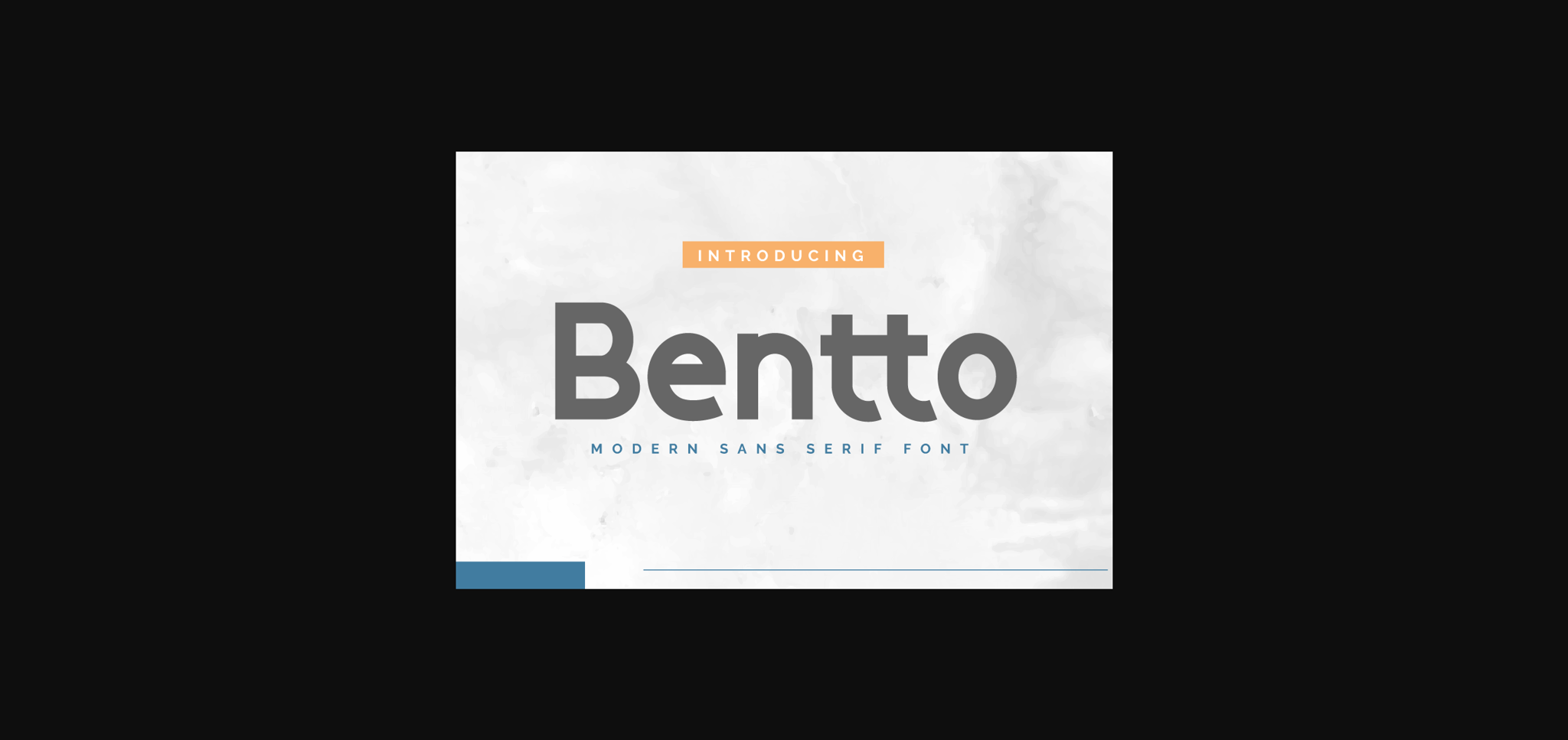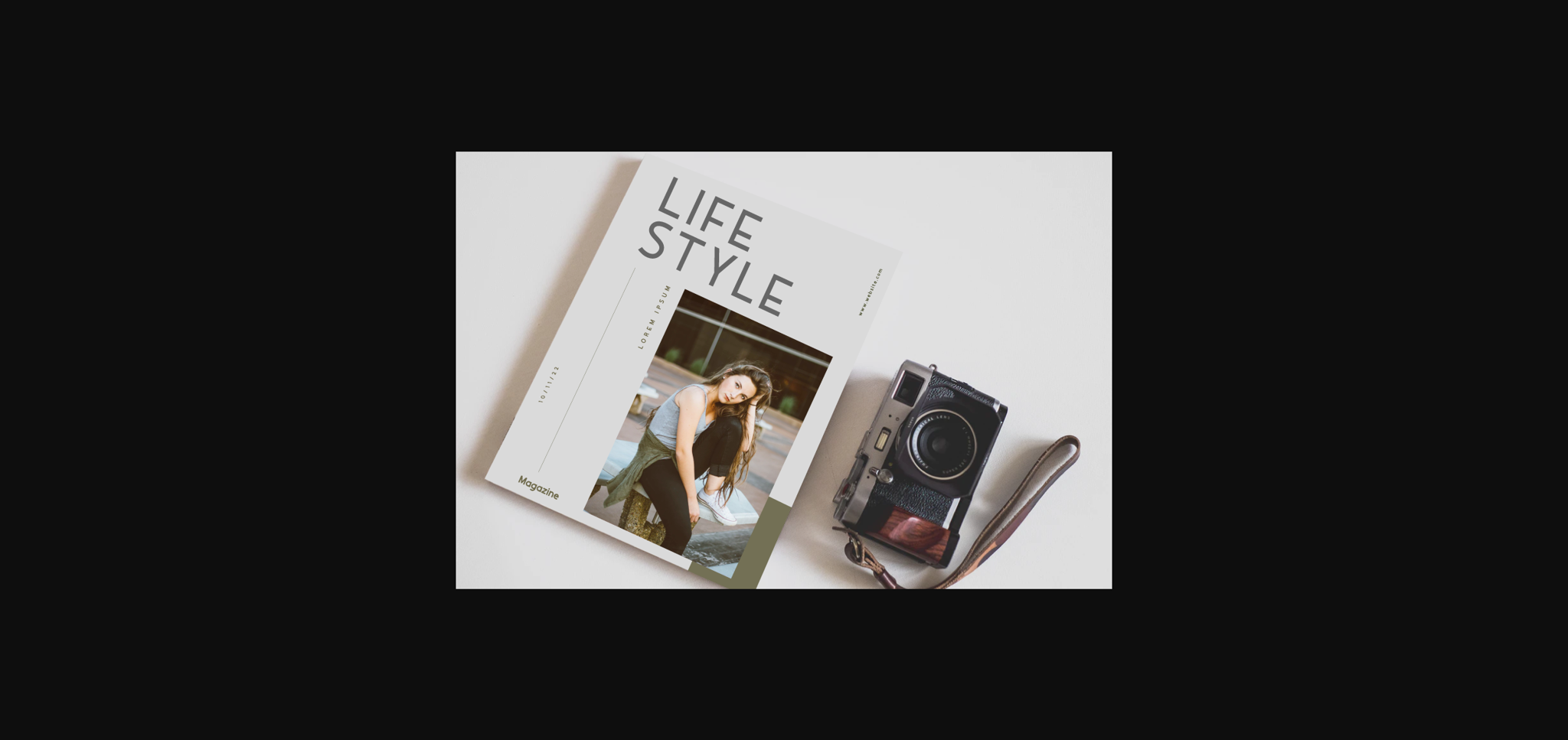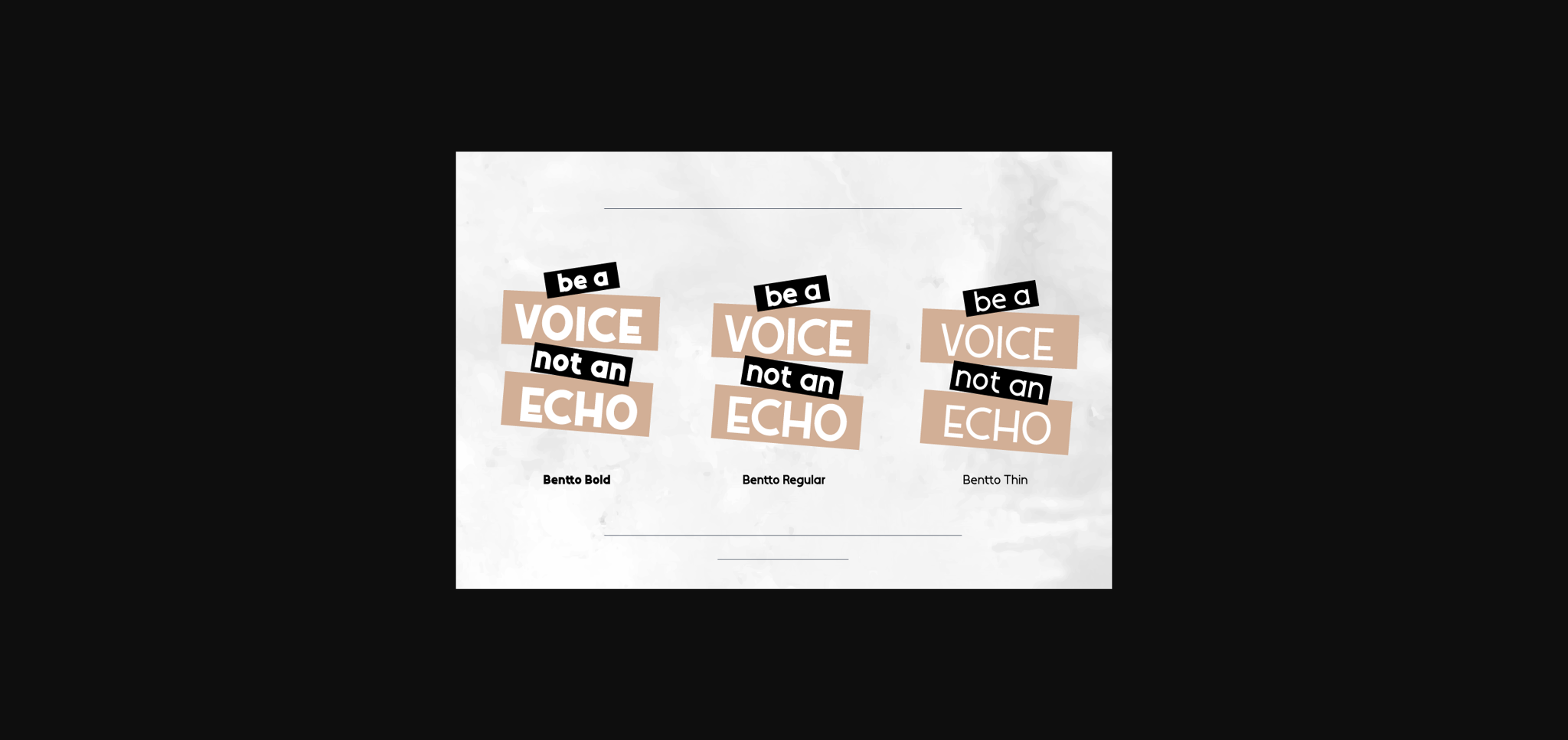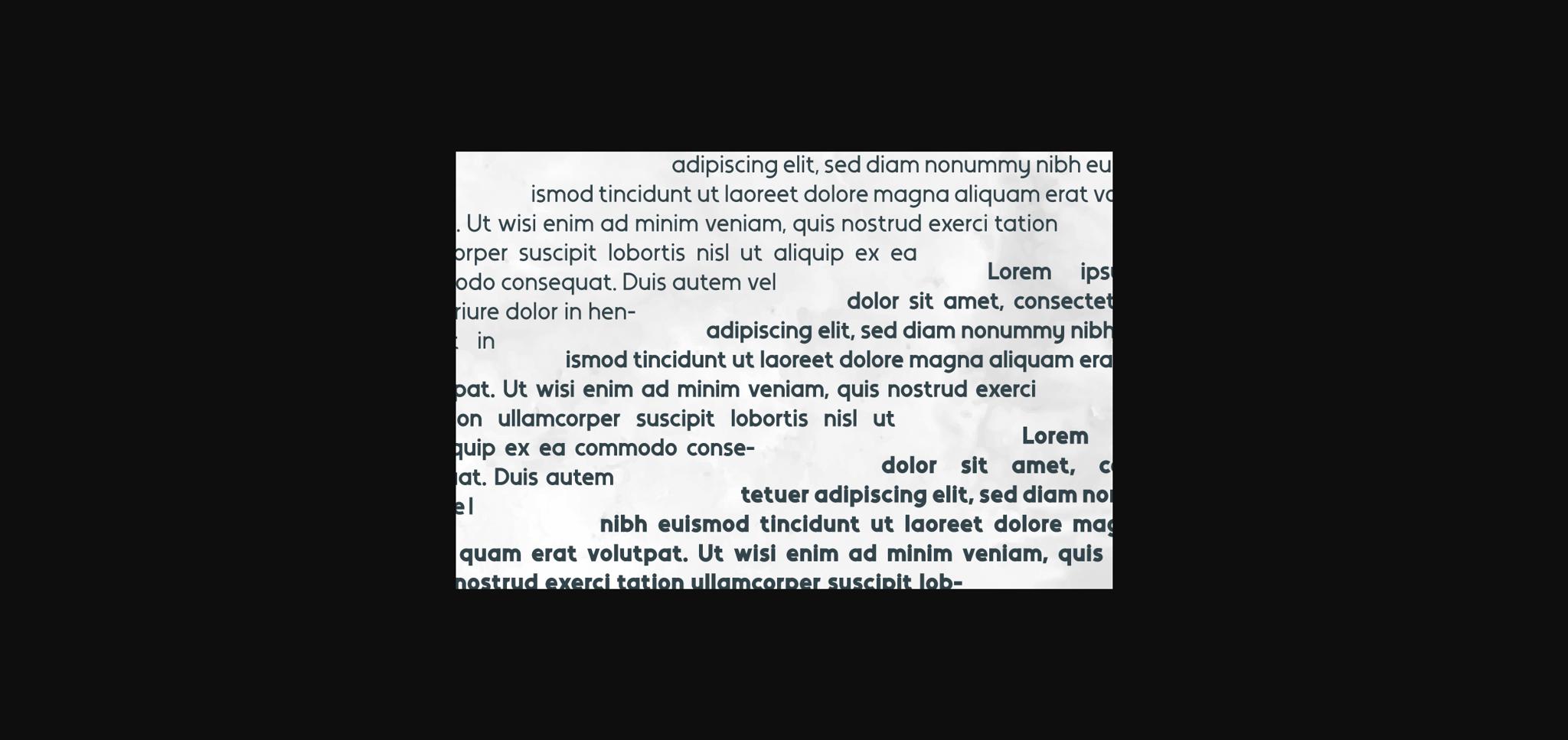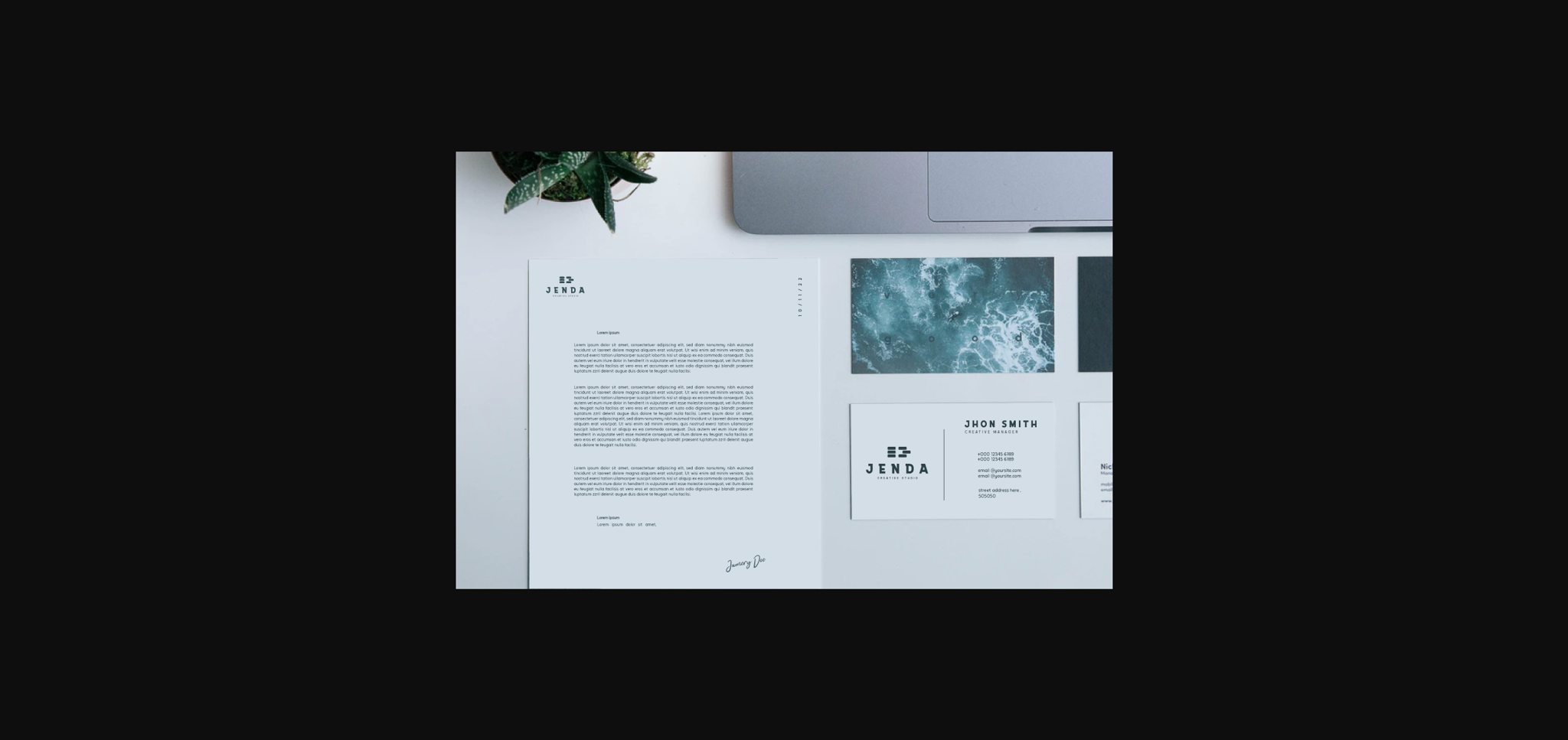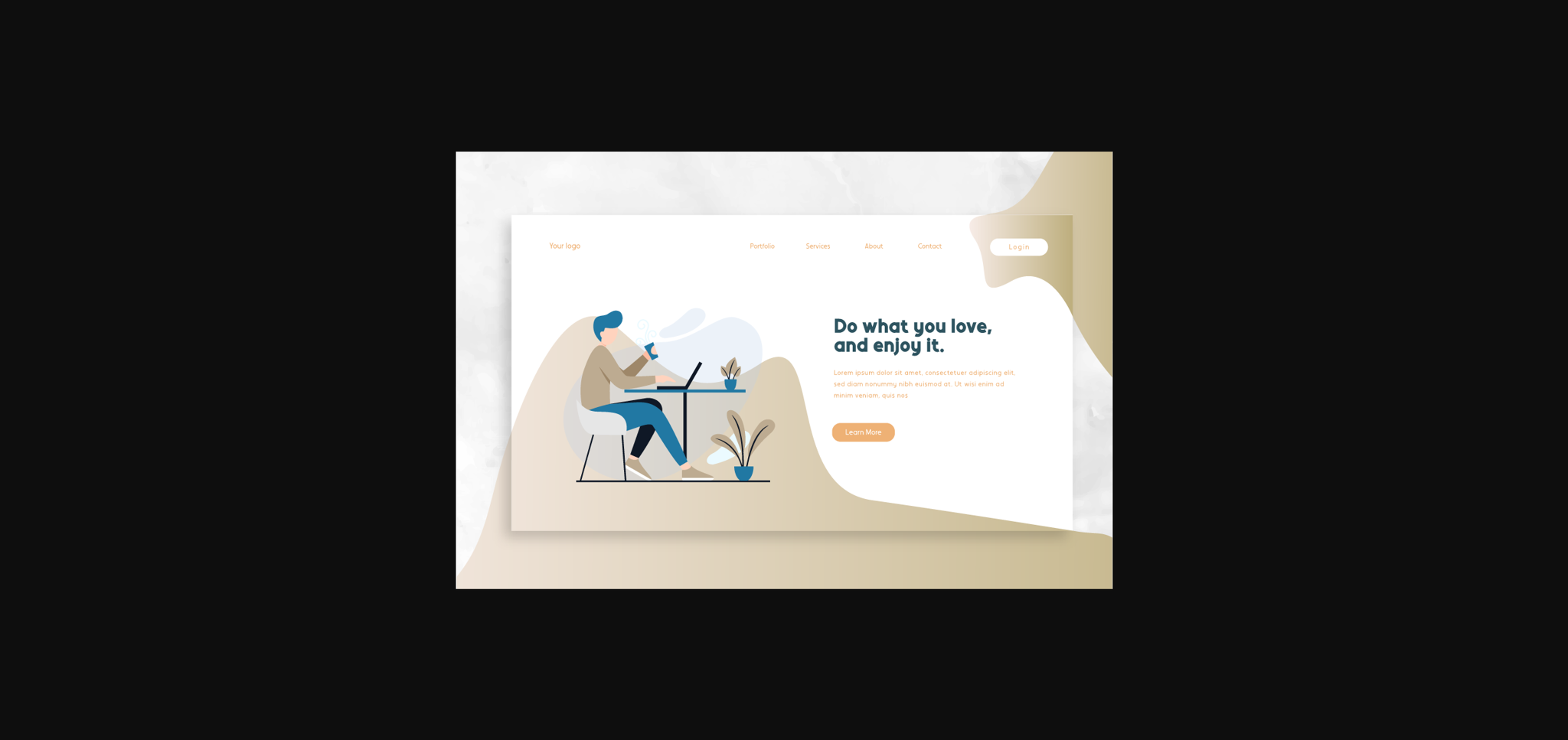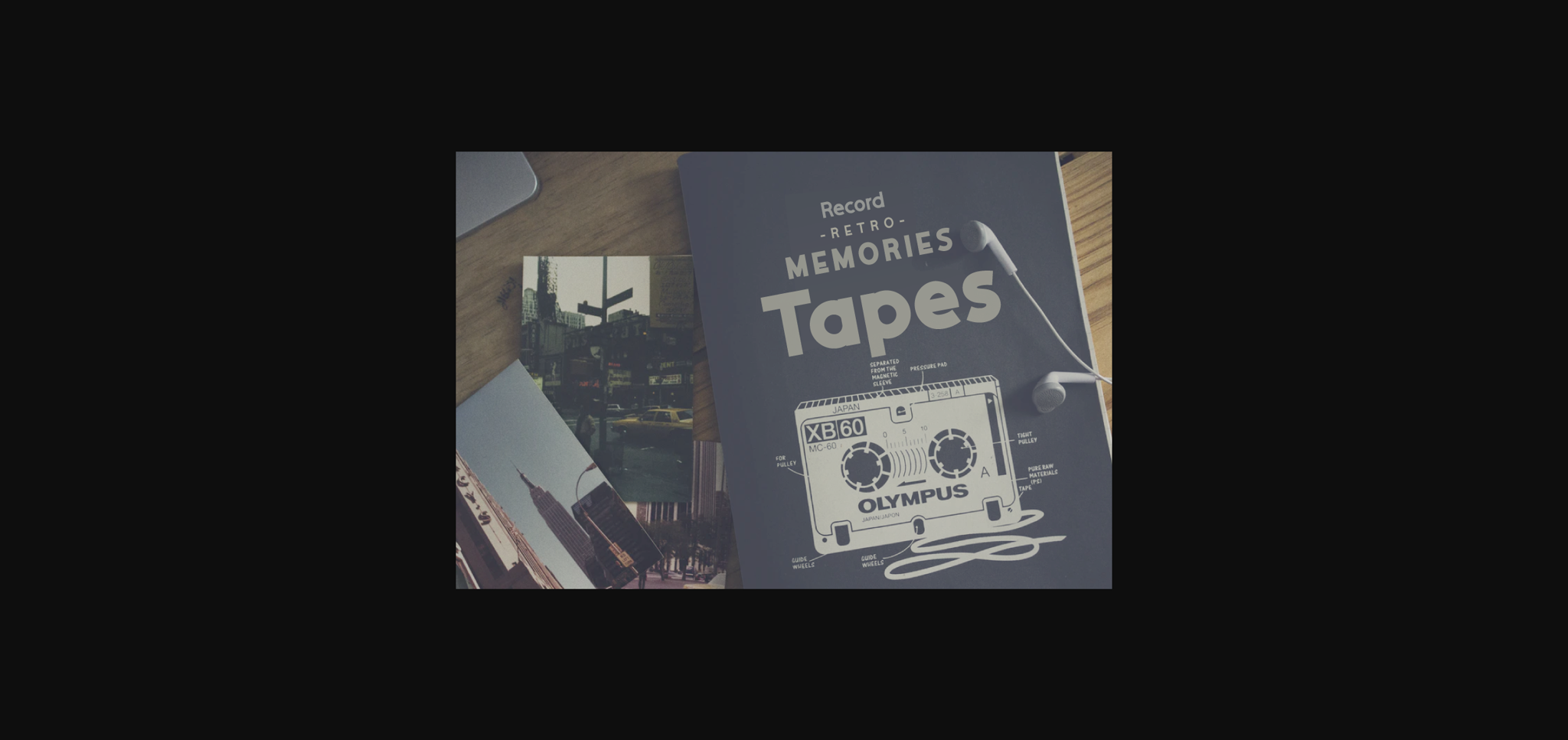
About Bentto Font
Bentto is a simple and casual sans serif font. Simple and easy to use, this font will be very beautiful if you mix it with your various craft designs.